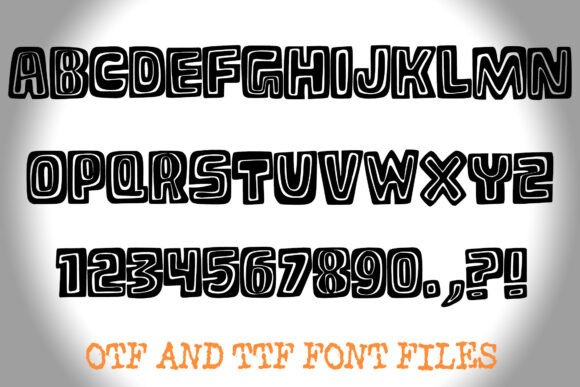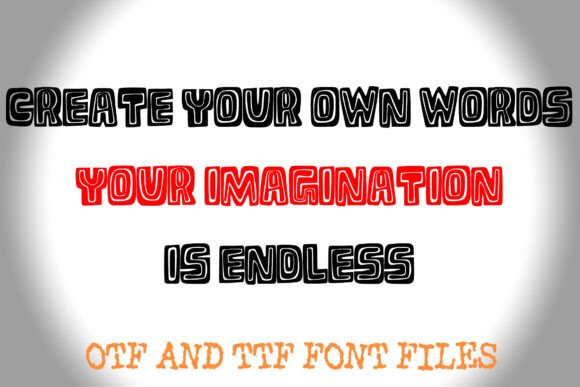
Introduction to Chunky Retro Outline Comic Font
Introducing the Chunky Retro Outline Comic Font – a bold, playful, and eye-catching typeface that combines retro charm with comic-style fun.
With its thick block letters, outlined shapes, and funky hand-drawn vibe, this font is perfect for projects that need a loud and cheerful statement The Chunky Retro Outline Comic Font includes uppercase letters, numbers, and punctuation, all designed with a bold outlined look that makes your text pop.
Key Features of Chunky Retro Outline Comic Font
Why Choose Chunky Retro Outline Comic Font?
Chunky Retro Outline Comic Font offers exceptional quality and versatility, making it a valuable addition to your design toolkit. Whether you’re creating for personal projects or commercial use, Chunky Retro Outline Comic Font delivers professional results.